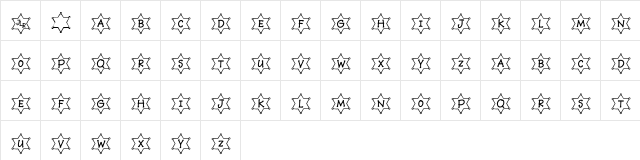
JLR Li'l Sheriff Regular Font Preview
JLR Li'l Sheriff Regular
Design Context for JLR Li'l Sheriff Typeface
JLR Li'l Sheriff is a composed and adaptable typeface that performs quietly and consistently across a wide range of design contexts.